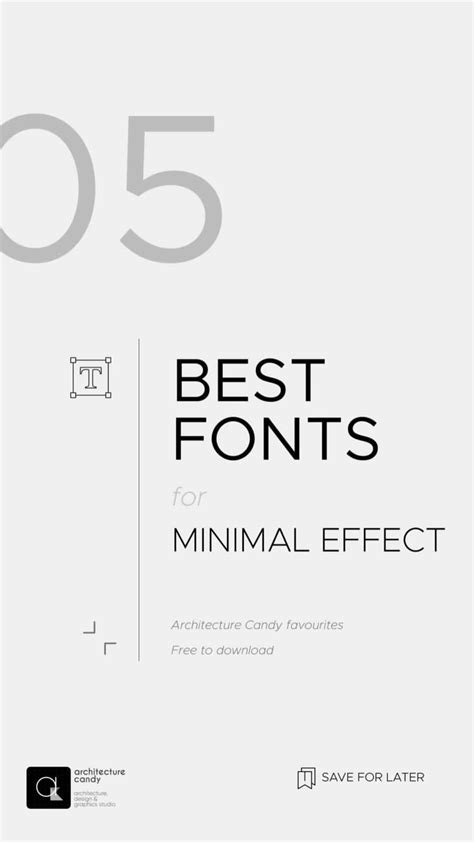
Selecting the paragon Font For Architecture Portfolio is a critical design determination that can elevate your professional demonstration from amateur to expert. In the competitive field of architecture, your portfolio function as a ocular narration of your blueprint philosophy, technical precision, and spacial sensitivity. While your task organize the core of the papers, the font you choose enactment as the still storyteller, guiding the subscriber through your complex technical drawings and situation analysis. The right composition ensures pellucidity, establishes a professional hierarchy, and harmonizes with the aesthetic lyric of your edifice. Whether you gravitate toward minimalist modernism or ornate definitive detail, your composition choice should mirror the intentionality found in your blueprints.
Understanding Typographic Hierarchy in Architectural Layouts
Architectural portfolios require a open visual hierarchy to care large amounts of technical info. You are essentially equilibrise dense project descriptions, persona caption, and page numbers. A well-chosen fount pair - typically one for aim and one for body text - creates a cycle that keep the reader prosecute.
The Distinction Between Serifs and Sans-Serifs
- Sans-Serifs: Known for their clean, geometric line, these fount are perfect for mod architectural portfolio. They convey a sense of contemporary efficiency and are extremely legible at smaller scale.
- Serifs: Much associated with custom, potency, and high-end publications. Using a high-contrast serif can add a sophisticated, editorial touch to your layout, especially when discourse theoretic concepts or historical restitution projects.
Top Font Categories for Design Portfolios
When curating your typography, take how the font interacts with the "white infinite" of your layout. Architects much favor face with inert proportions that do not disquiet from the optical strength of the draftsmanship themselves.
| Font Type | Best Use Case | Visual Feel |
|---|---|---|
| Geometric Sans | Task rubric and headers | Structured, bold, technological |
| Humanitarian Sans | Long-form labor description | Readable, approachable, organic |
| Modern Serif | Introduction and bio pages | Elegant, esteemed, deliberate |
💡 Tone: Always ensure your elect baptistery support a wide range of weight, from Light to Extra Bold, to cater enough tractability for mark complex base plans and diagram.
Practical Tips for Portfolio Typography
Choosing the best Font For Architecture Portfolio is only half the engagement. How you falsify that font - through spacing, weight, and contrast - is where the existent plan happens.
Mastering Leading and Kerning
Architects are trained to guess in millimeter. Apply that same precision to your typography. Increase your leading (line space) to around 1.2x to 1.5x the point sizing to ensure that paragraph of text don't feel claustrophobic against your high-resolution render. Adjust the trail (letter spacing) for all-caps header, which can look graceful when spaced out slenderly, but may become unclear if overdone.
Establishing Consistency Across Spreads
The most professional portfolios maintain a rigid grid scheme. Your font sizes should be purely limited to a delineate set (e.g., 24pt for title, 14pt for subheadings, 10pt for body text). Consistence in your character intervention tells the reviewer that you have an eye for item, which is arguably the most important trait in an designer.
Accessibility and Legibility
Ne'er forfeit legibility for fashion. While a lean, avant-garde face might appear visually striking on a screening page, it might be nearly insufferable to say when printed at a smaller scale. Always test your face choice by printing a sample page. High-resolution screens may render slender shot beautifully, but ink bleed on paper can easily ruin intricate typefaces. Stick to reliable, high-quality font families that perform well in both print and digital formats.
Your portfolio is a reflection of your professional identity. By process your composition with the same rigor you apply to your edifice blueprint, you demonstrate a holistic savvy of aesthetic and communicating. Focus on proportion, keep a disciplined hierarchy, and prioritize readability to ensure your employment stands out for all the right reasons. A well-curated typeface choice serve as the foundation for a cohesive and impactful presentment of your architectural achievements.